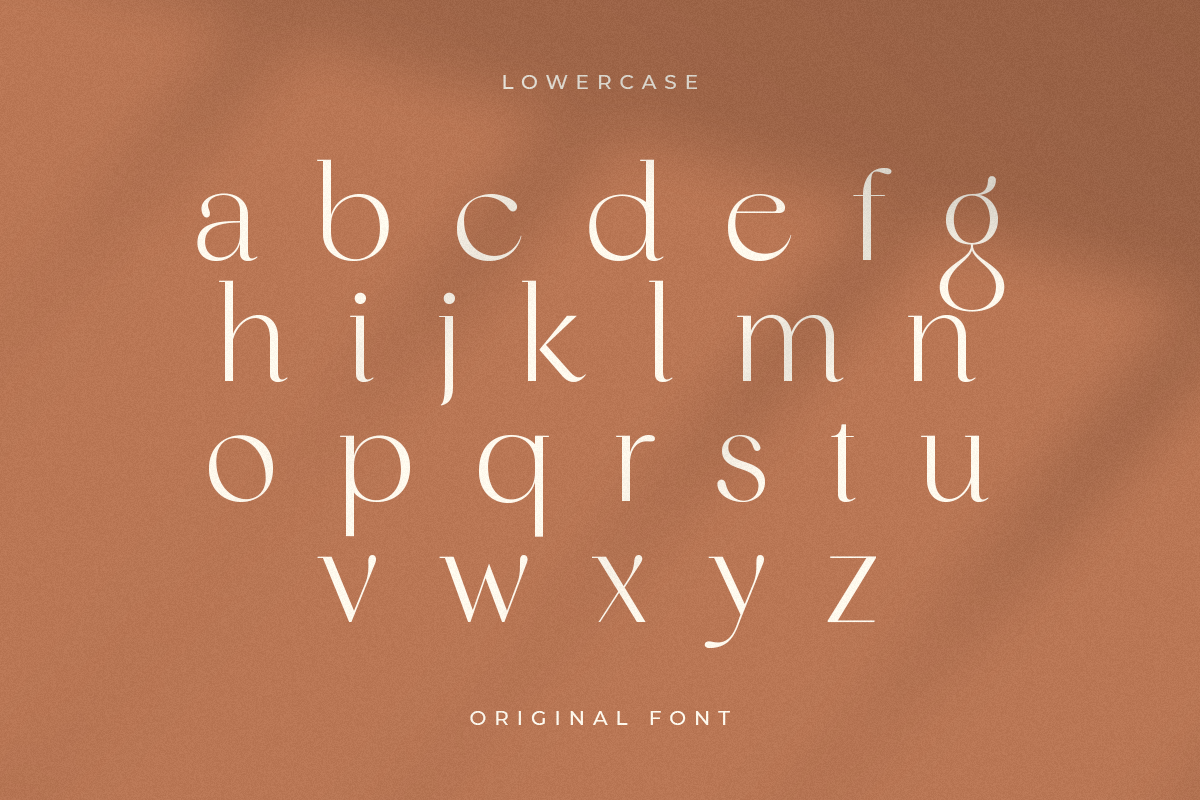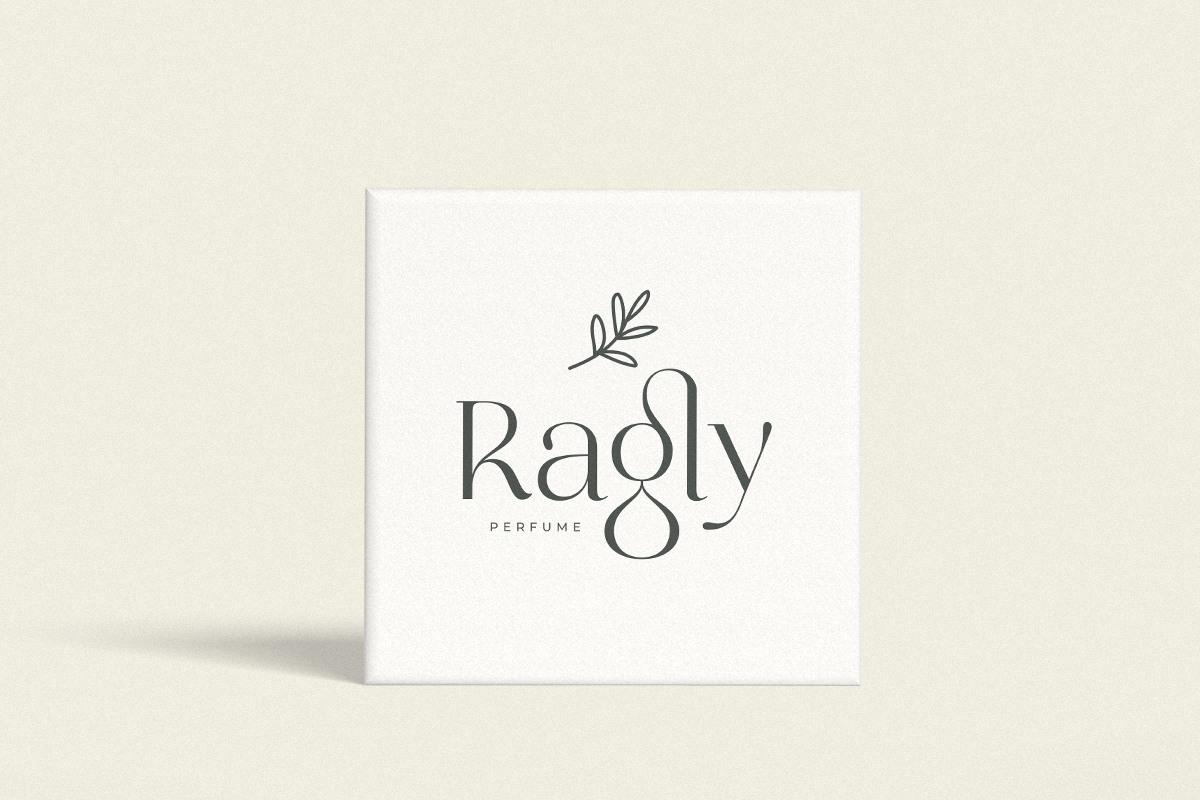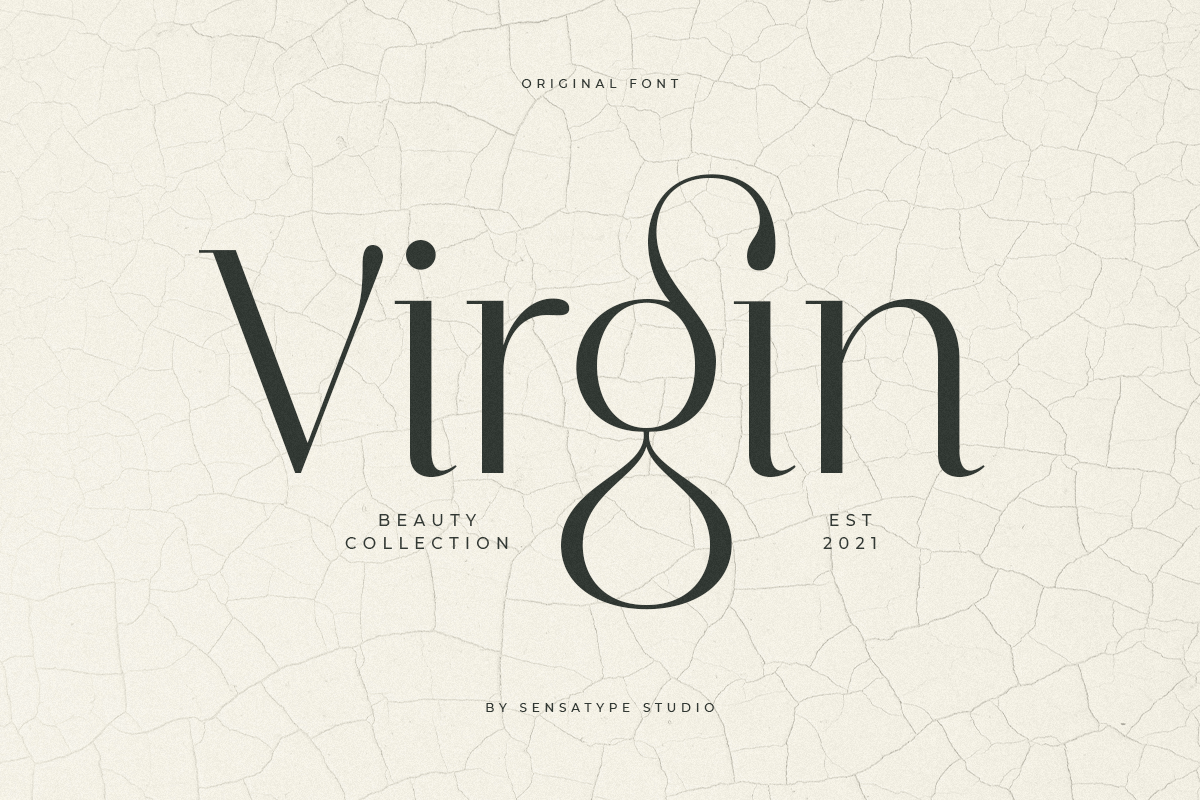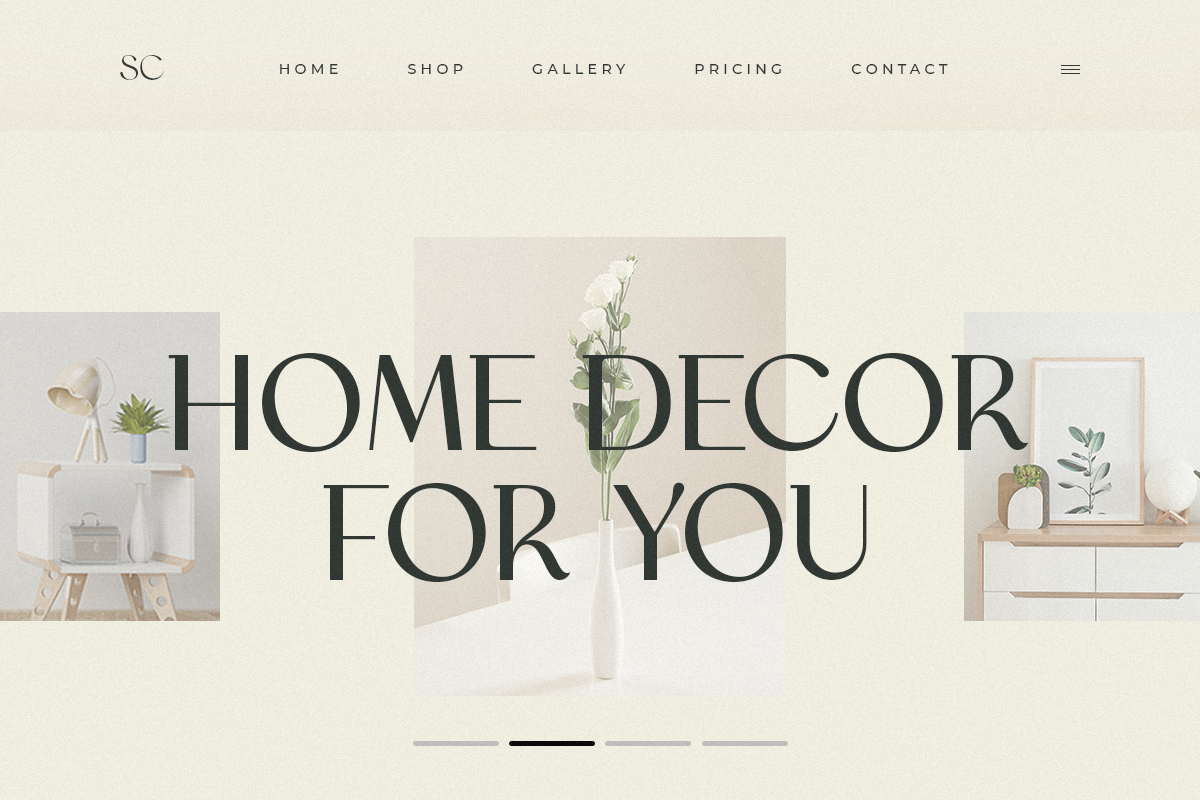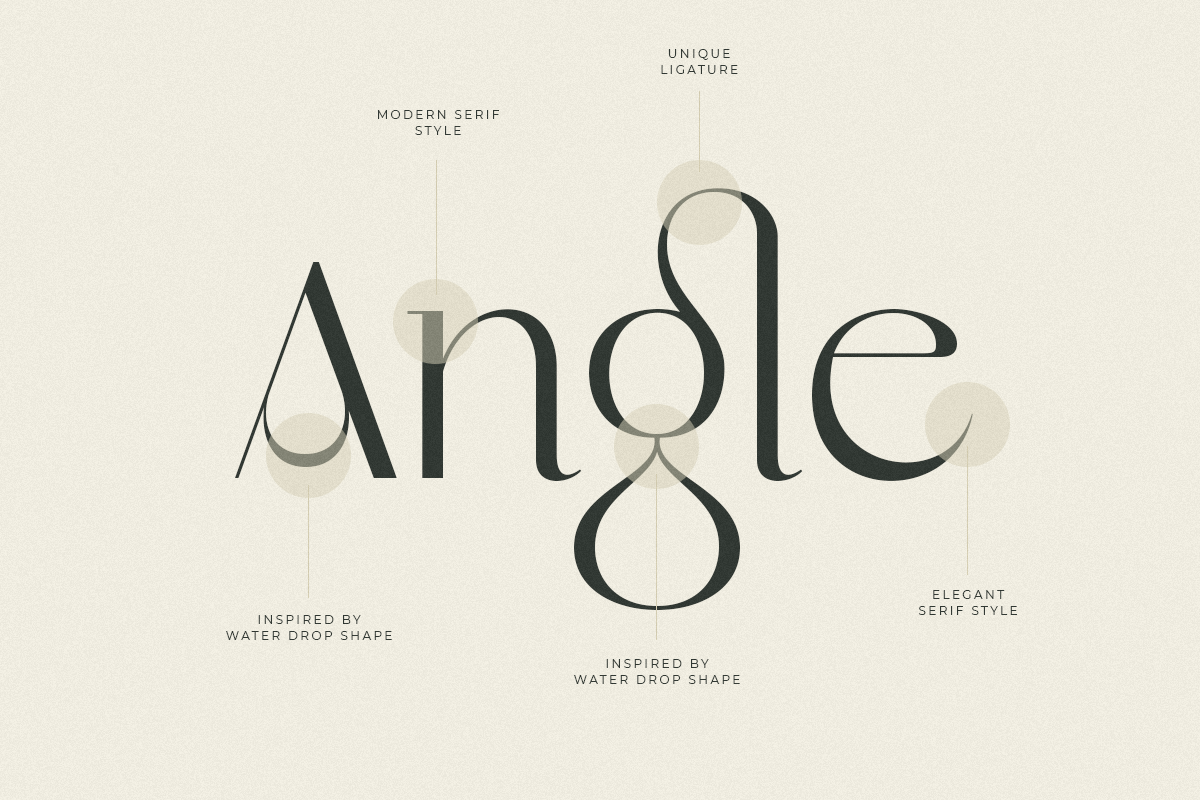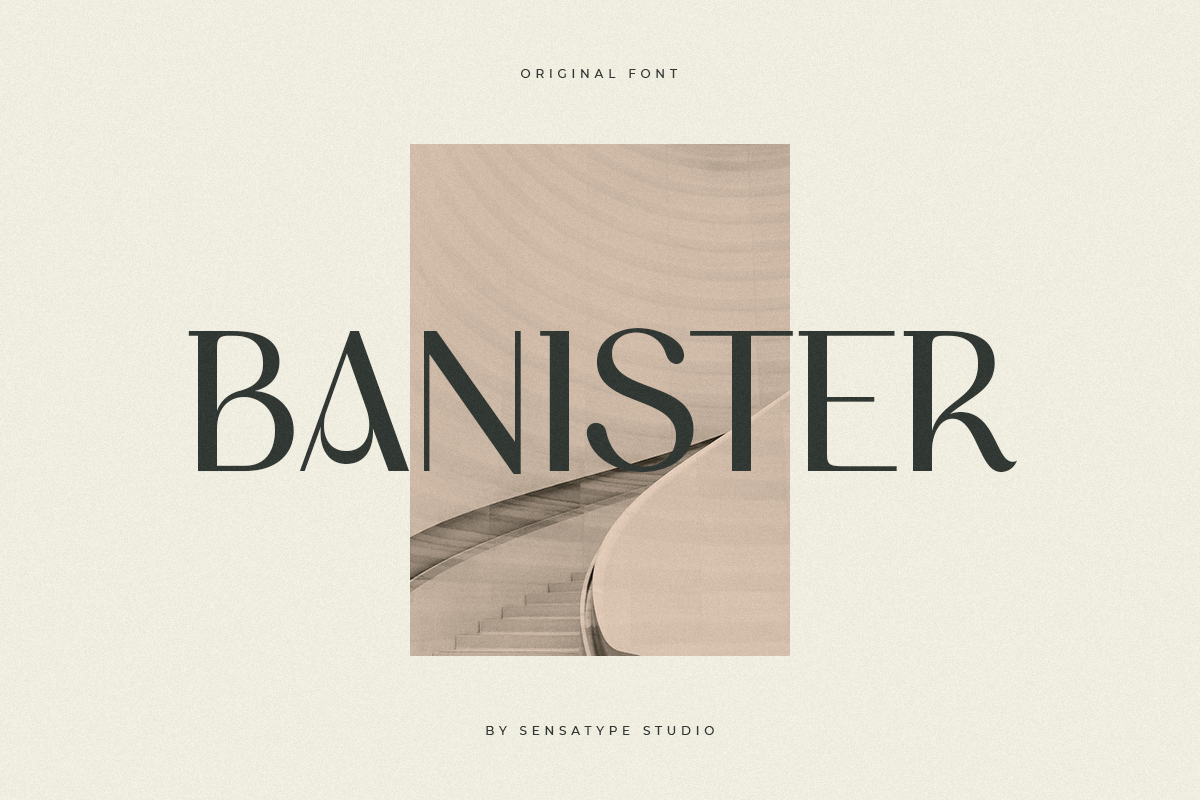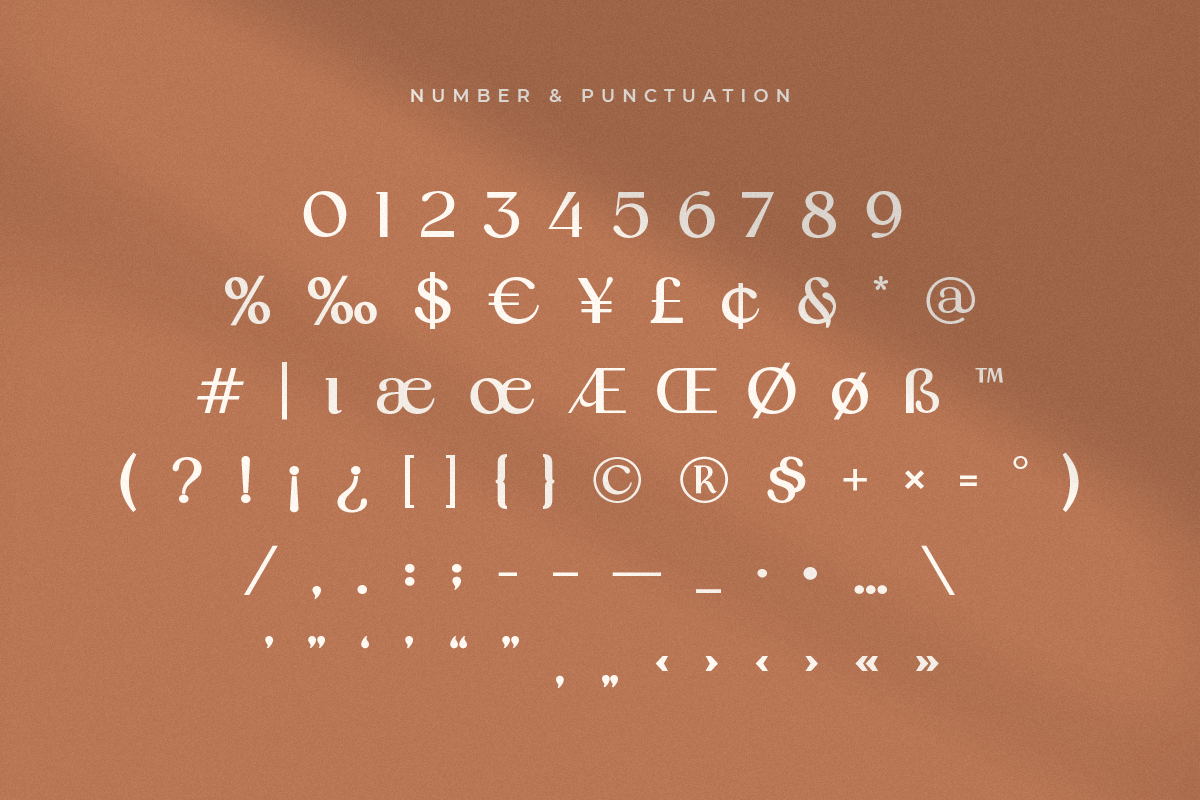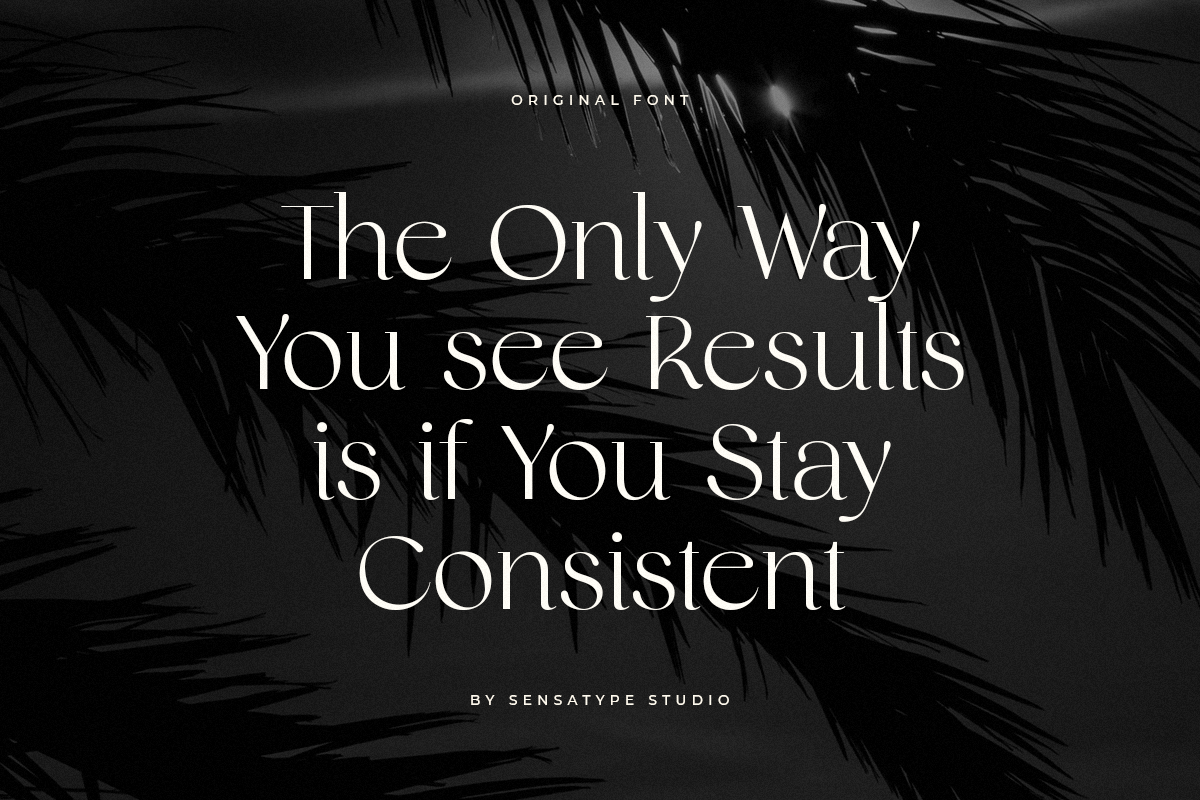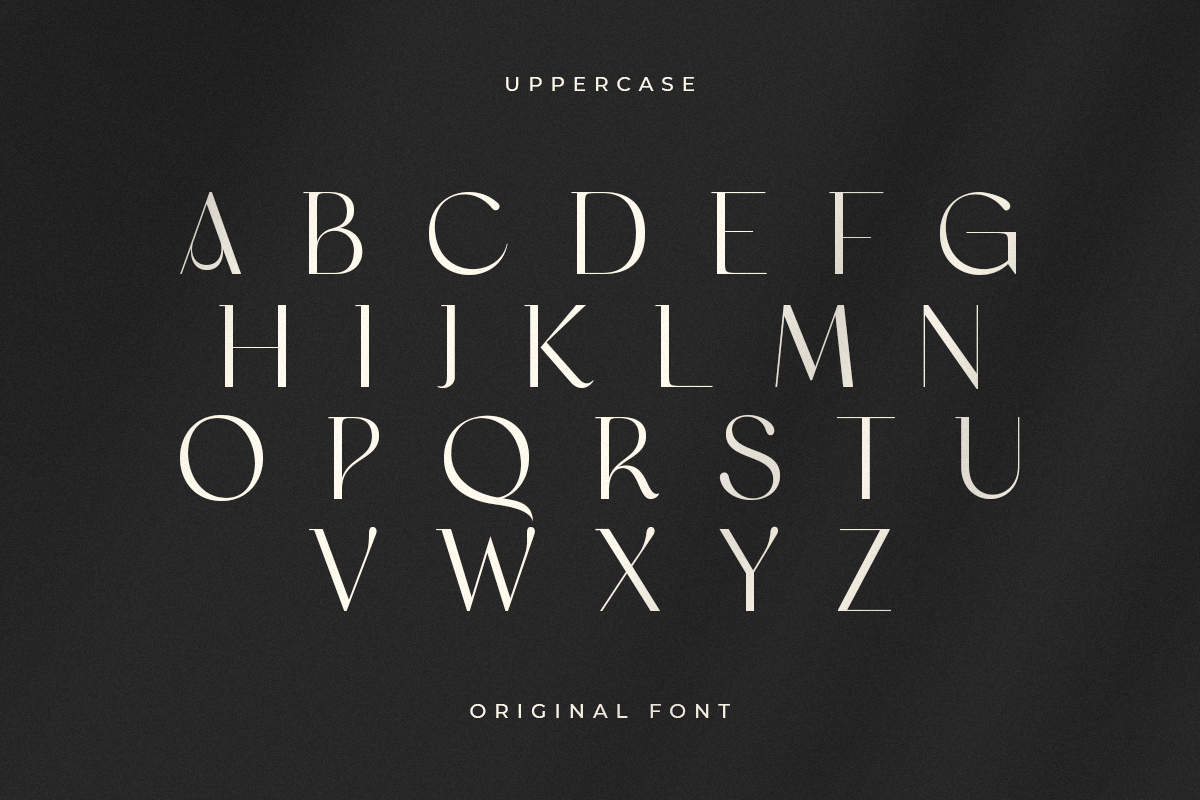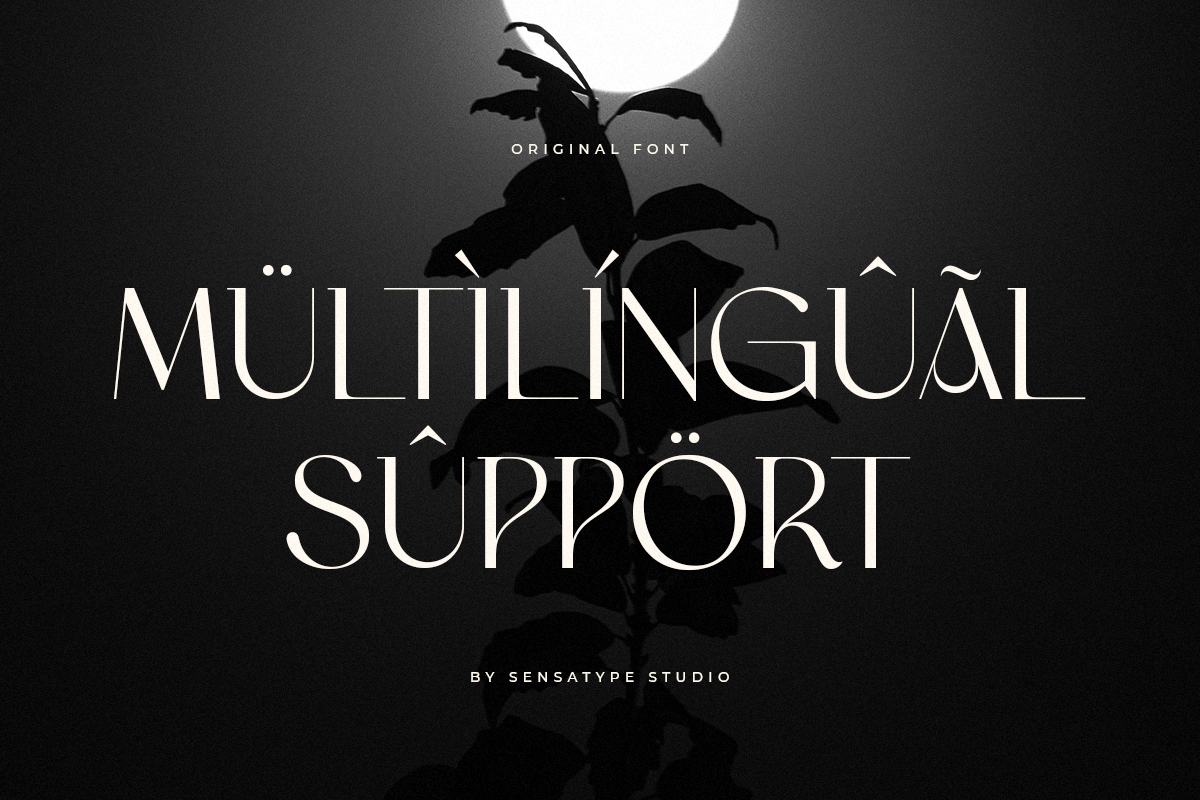
Original - Classy Branding Font
Original is a Feminine Classy Branding Font
A new font that we created special for branding needs, with extra ligature in unique characters add value of your brand. It so nice to leverage designer or product owner that need solutions to make their design look more stylish and modern. And specially for satisfy font, We prepared any ligatures, and any alternate characters to help you create unlimited variations for your creative needs.
Original Branding font ready with:
- Any options to get creative variations (combination of Alternate and Ligatures)
- Preview as a inspirations that you can do with Original font
- Ready with Lowercase and Uppercase characters